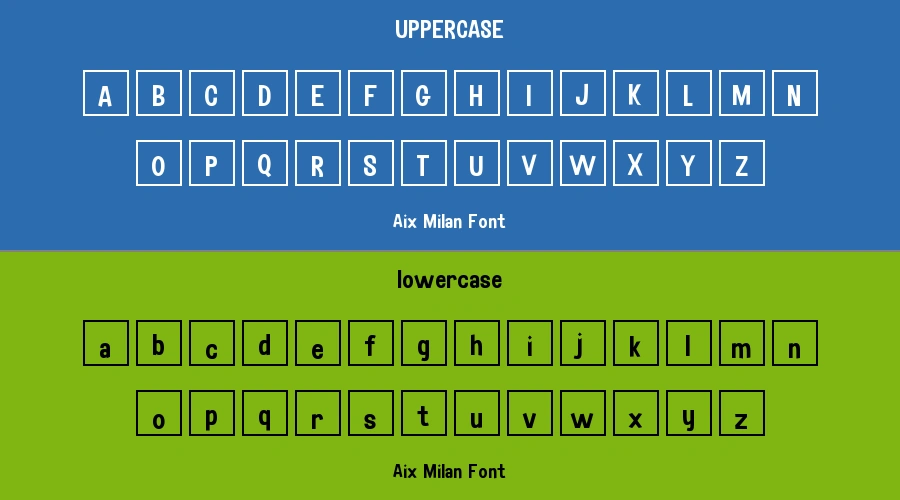
About Aix Milan Font
When typographic excellence matters most, Aix Milan Font delivers through its thoughtful blend of consistent strokes and professional reliability. Specially crafted for book design, it offers the adaptability and professional finish required for sophisticated design work. Every detail serves a purpose.
The character set showcases thoughtful details like high x-height alongside functional logotype support. This proves especially valuable in exhibition materials, where kerning accuracy directly influences results. Particular attention was paid to joint detail and cultural relevance during development.